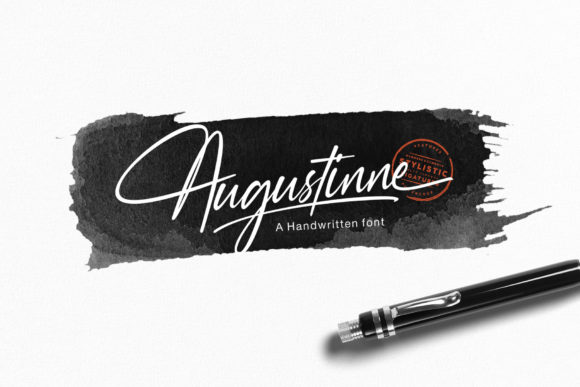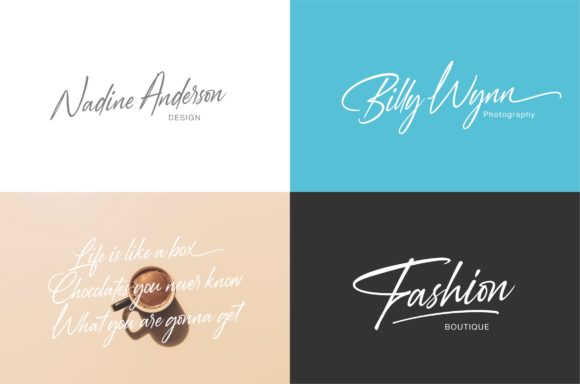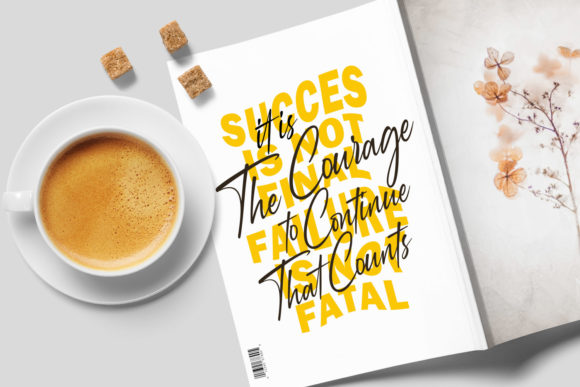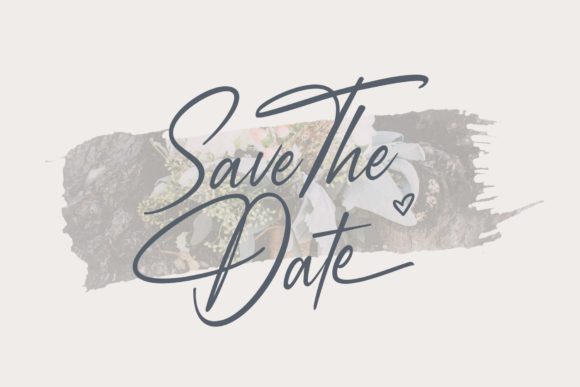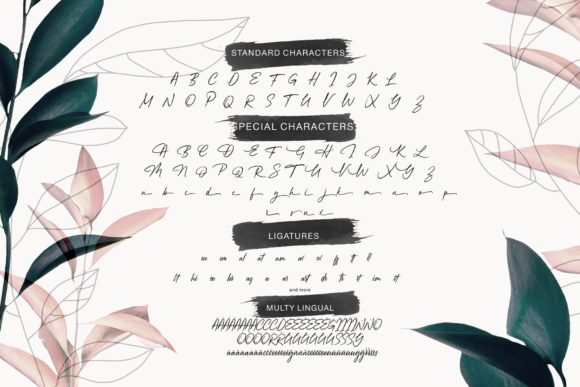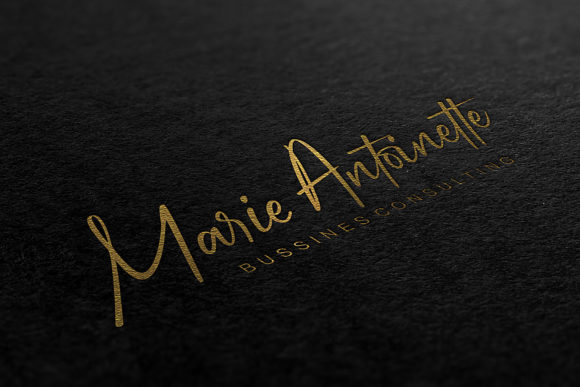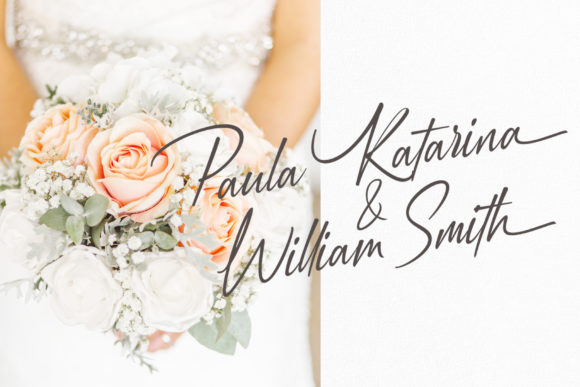
Augustinne Font
About Augustinne Font
The Augustinne is a spacious, comfortable script font. It’s guaranteed to make your text stand out, perfect for cards, printed quotes, logos, signatures, product packaging, book covers, invitations, frame writings, headers and whatever your imagination holds.